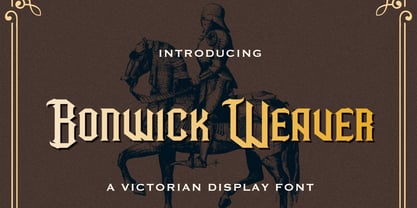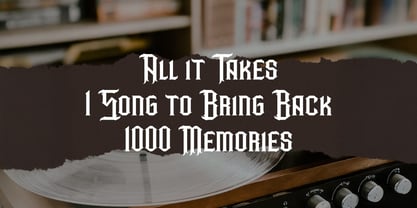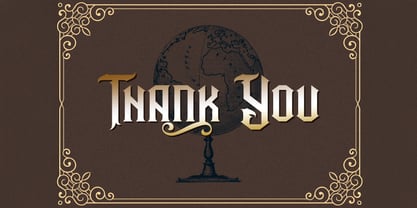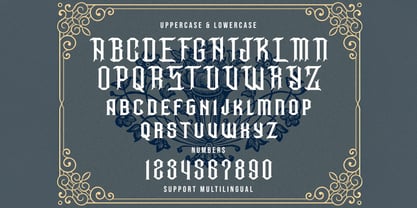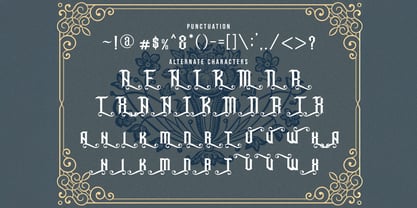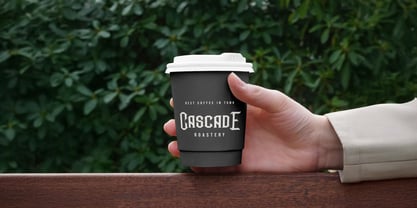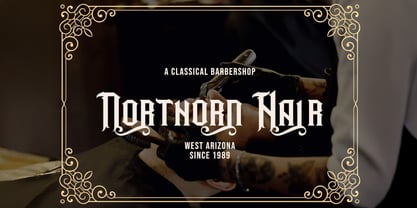
Bonwick Weaver
by Stringlabs Creative Studio
The Bonwick Weaver Font Family was designed by Virgiawan Listanto and published by Stringlabs Creative Studio. Bonwick Weaver contains 1 styles. More about this family
Bonwick Weaver is a Victorian display font that captures the ornate beauty and bold craftsmanship of classic 19th-century lettering. With its decorative details, elegant curves, and vintage flair, this typeface is perfect for posters, book covers, packaging, invitations, and branding that demand sophistication and nostalgia. Bonwick Weaver brings timeless character and artistic elegance to any design, making it ideal for both modern and historical-inspired projects.
Designers: Virgiawan Listanto
Current Foundry: Stringlabs Creative Studio